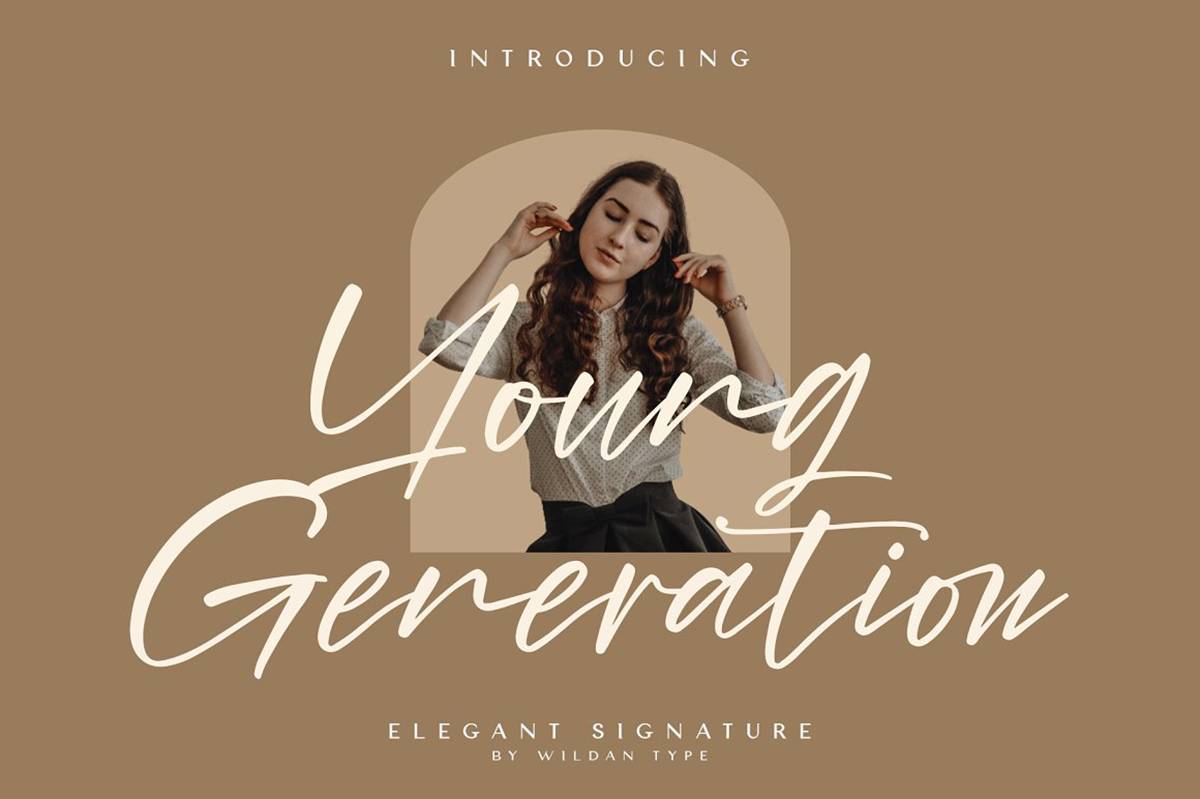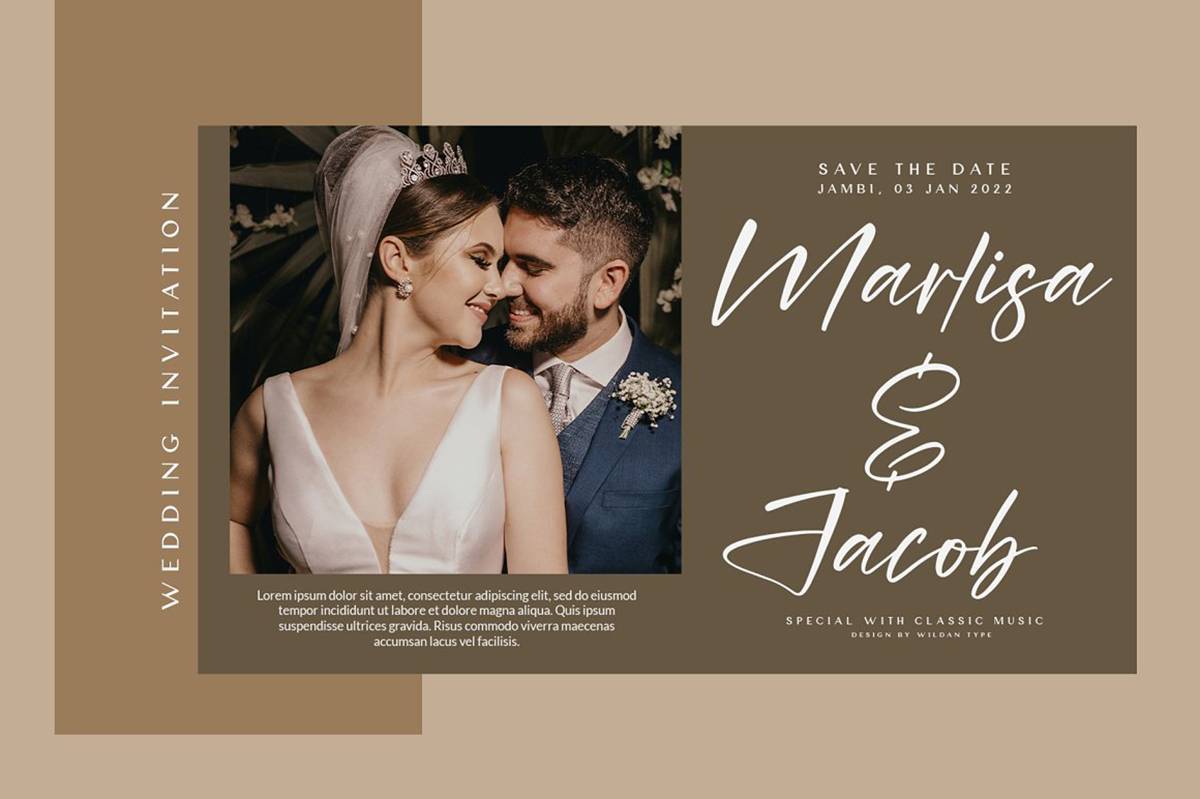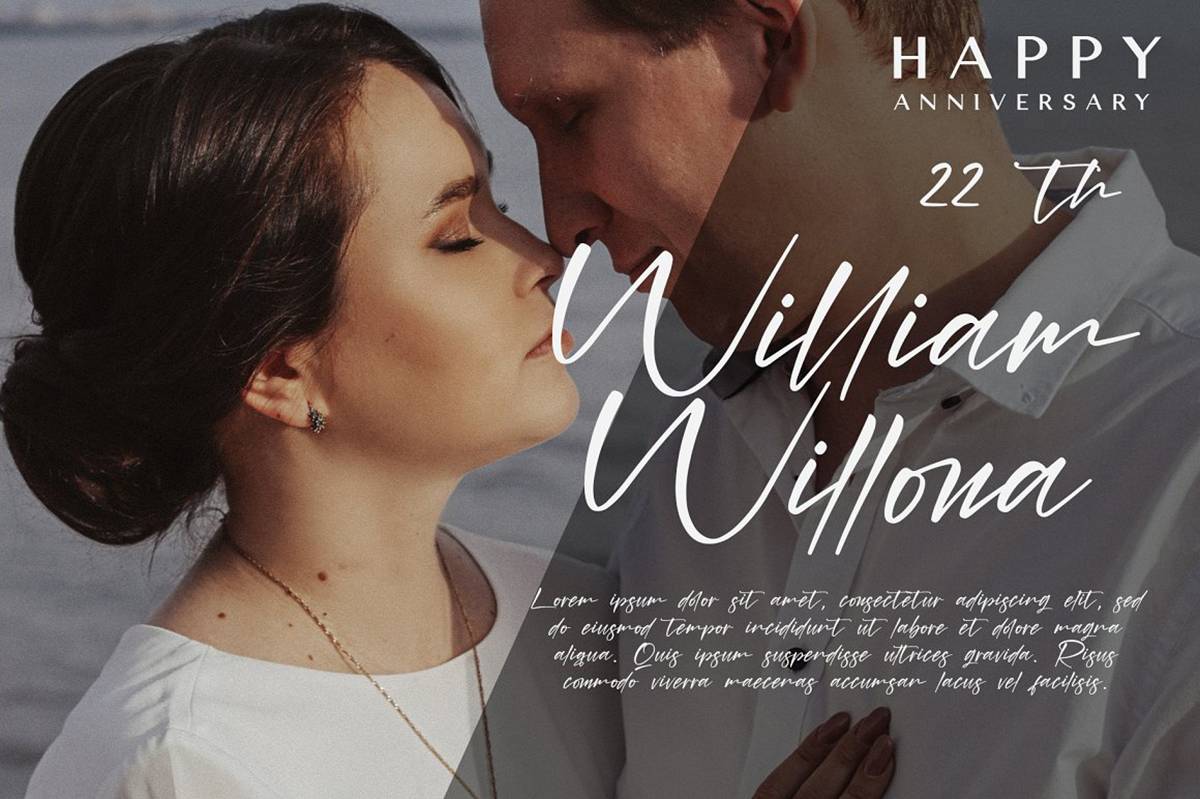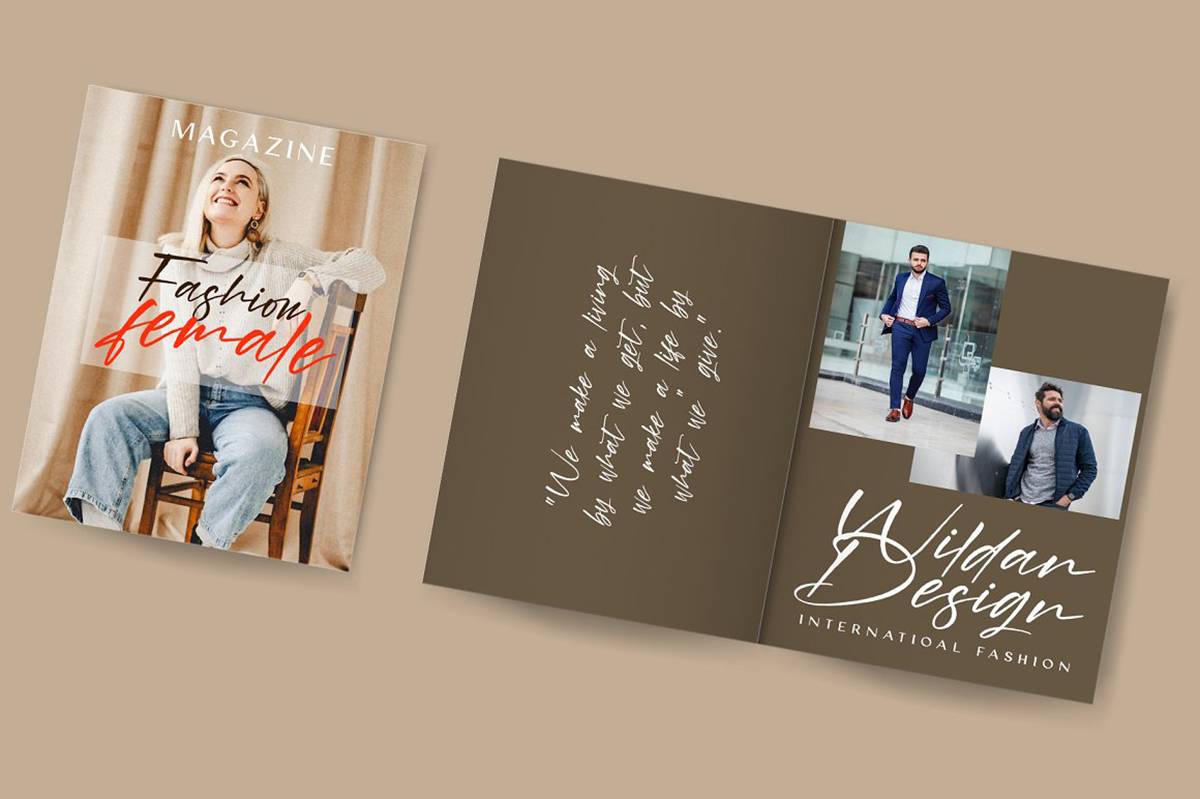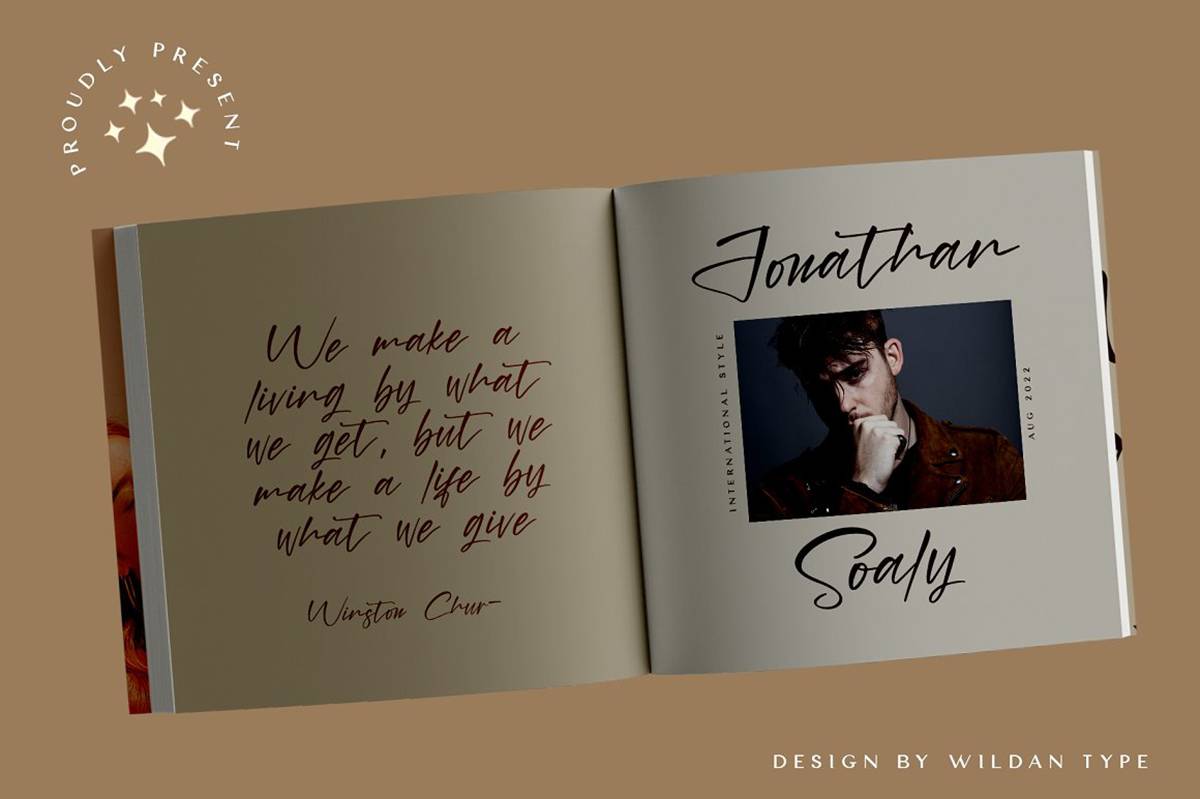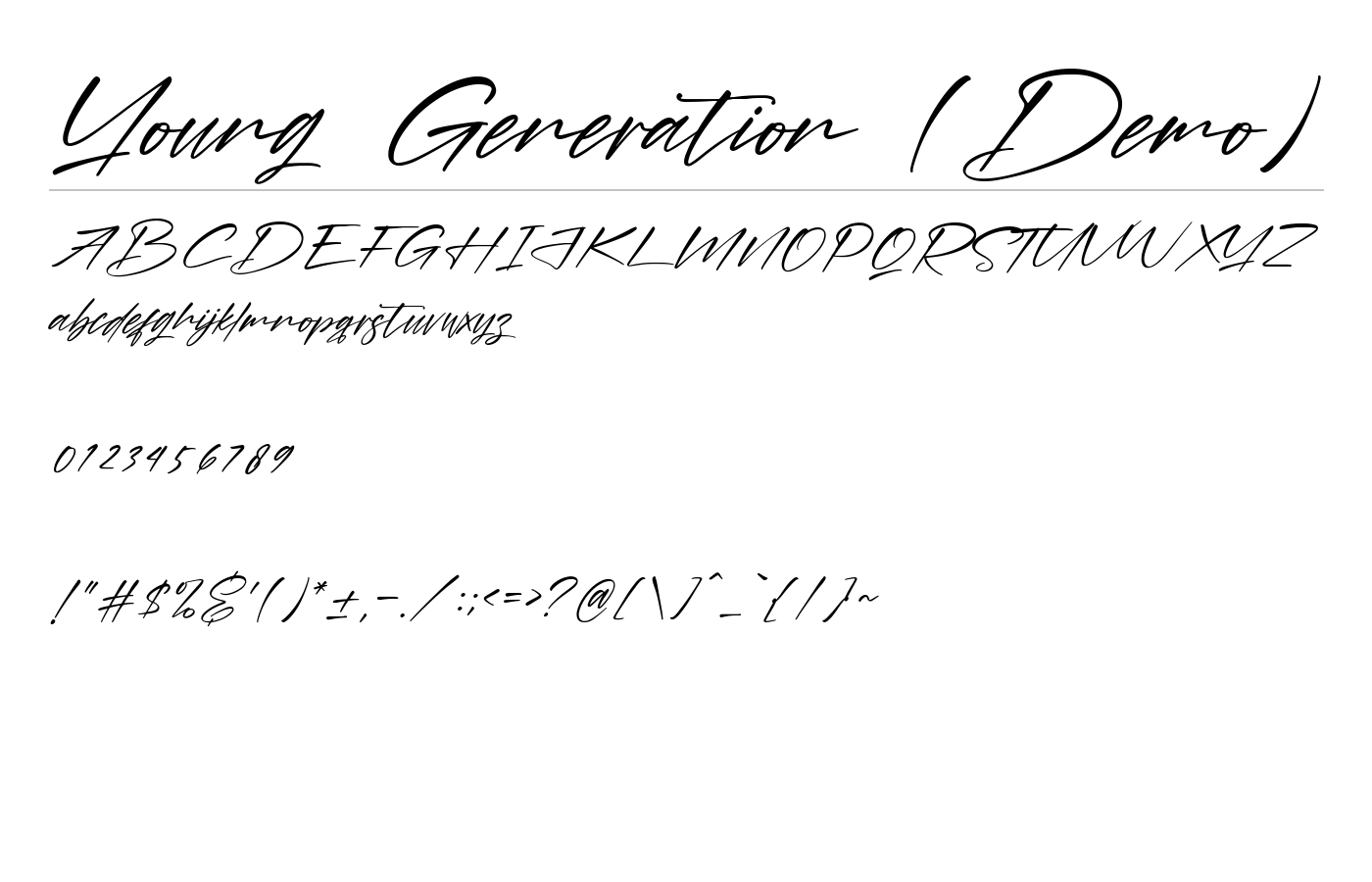
Young Generation is an elegant and modern script font with a casual, handwritten feel. Its thin, flowing strokes and slightly slanted letterforms give it a dynamic and youthful personality, making it perfect for creative branding, invitations, and stylish editorial projects. This font works well in contexts where a personal, artistic touch is desired, adding charm and sophistication without feeling overly formal.
Young Generation Font
About Young Generation Font
| Font family | Young Generation Font |
| Designer | Wildan Suprian Syah |